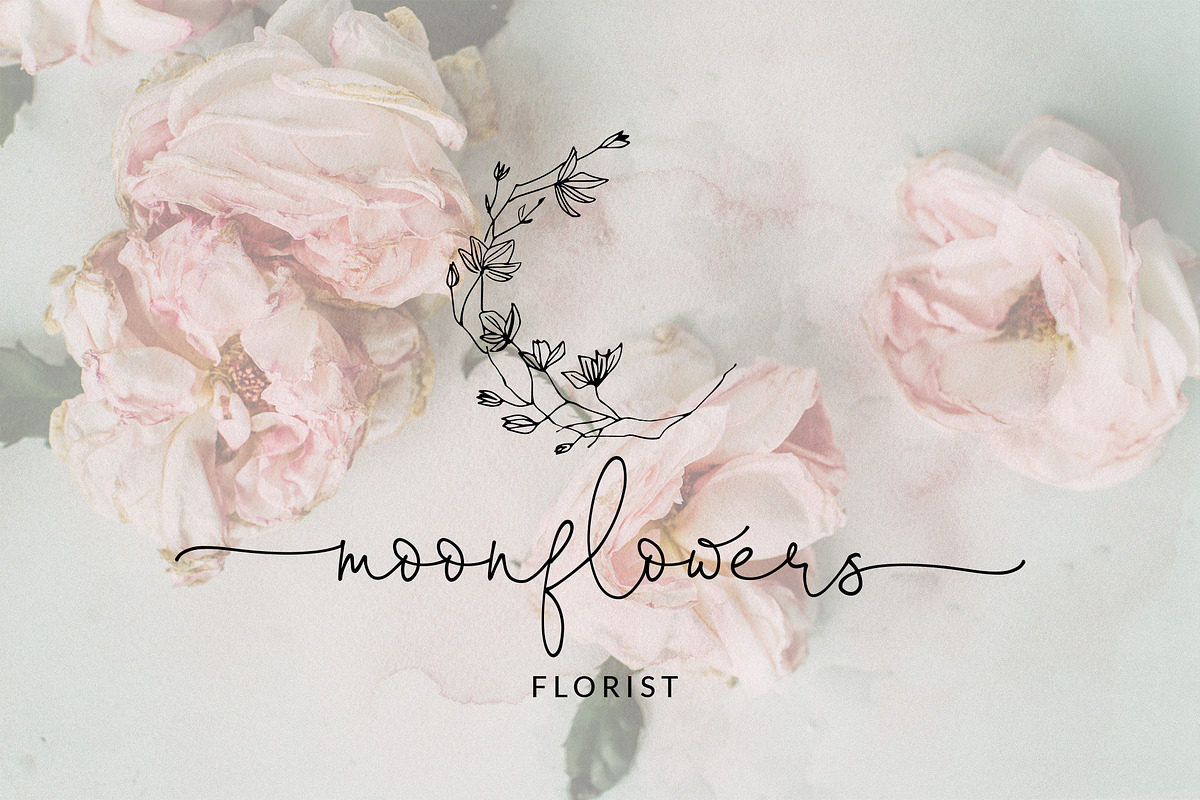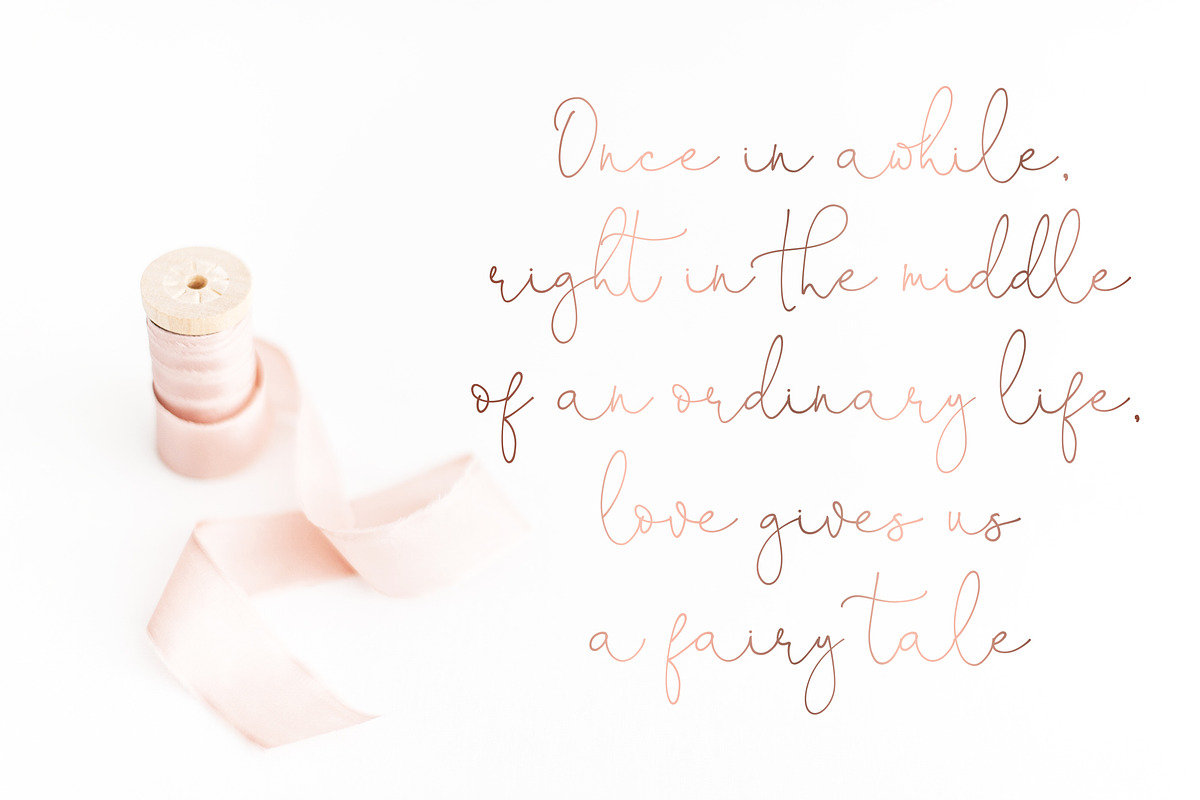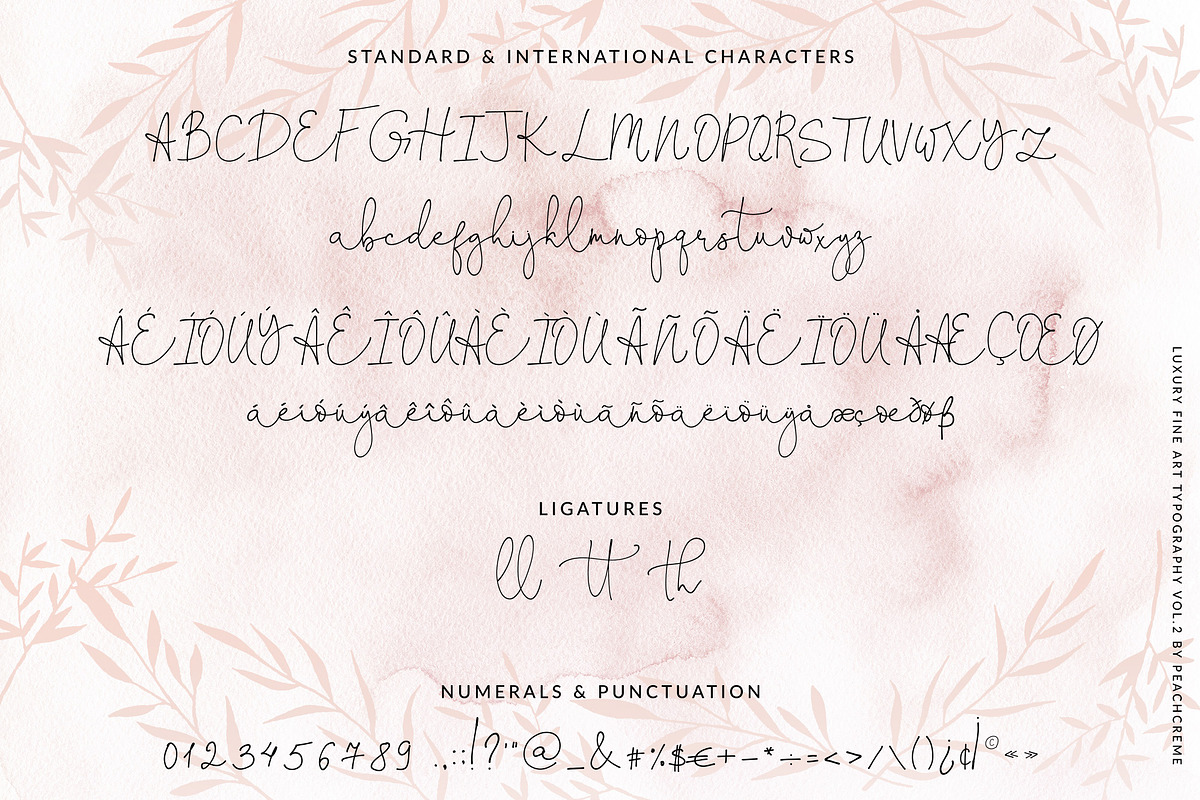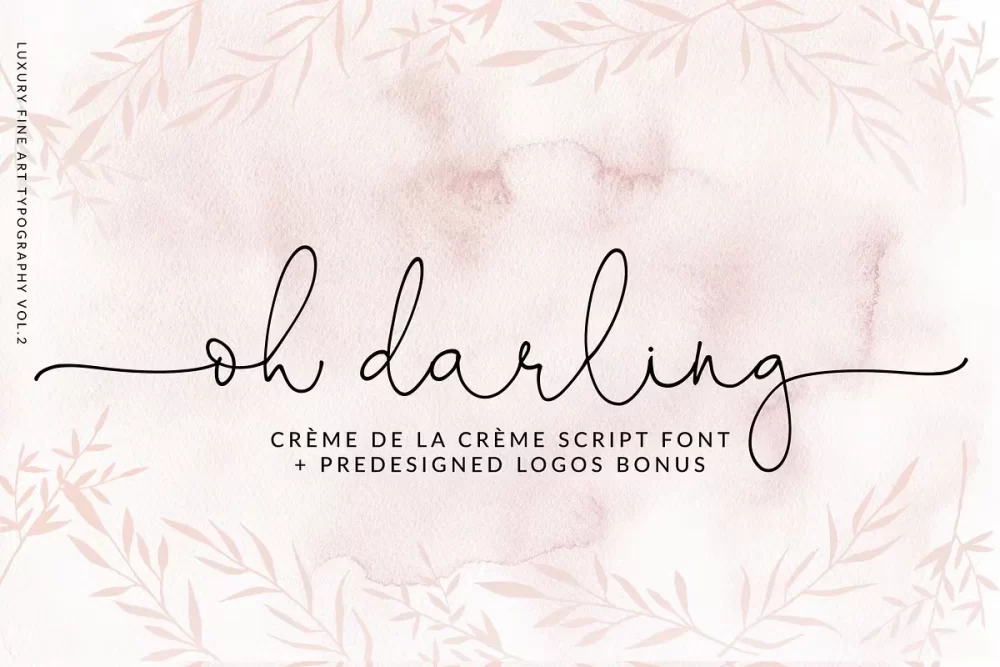
Oh Darling is a crème de la crème hand-lettered calligraphy font with ethereal, adorable touch. It is perfect for branding, event invites, lovely Instagram posts. It includes 6 bonus predesigned logos. You will love them.
“Oh Darling” includes full set of charming uppercase and lowercase international letters, numerals, a large range of punctuation and ligatures. All lowercase letters include beginning and ending swashes, giving realistic hand-lettered style.